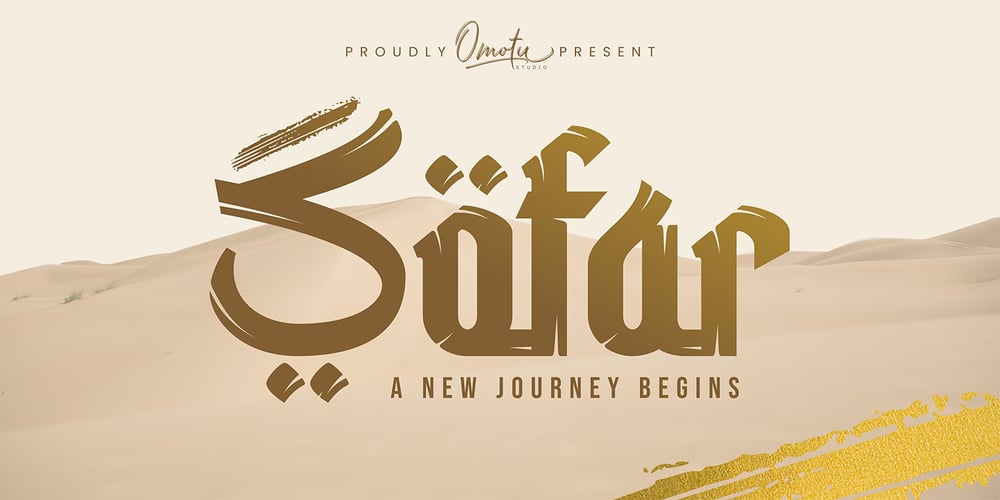
Sofar Font Family was designed by Ibnu Utomo and published by Omotu. Sofar contains 1 styles and family package options. Sofar is a modern arabic style font. This font very usable for designing all kind of graphics design related to Islamic Contents. Sofar font is suitable for heading, branding, logotype, apparel, T-shirt, Hoodie, product packaging, quotes, flyer, poster, book cover, advertising, etc.What’s Include? OpenType support Multilingual support PUA encoded Features: uppercase, lowercase, numeral, punctuation, multilanguage, aalt, calt, alternates (uppercase & lowercase), and swashes. Accessible in the Adobe Illustrator Glyphs panel, or under Stylistic Alternates in the Adobe Photoshop OpenType menu, Adobe InDesign, Corel Draw, even work on Microsoft Word Please message me if you’re unsure of any language support.Thanks for looking, and I hope you enjoy it! Please don’t hesitate to drop me a message if you have any issues or queries.